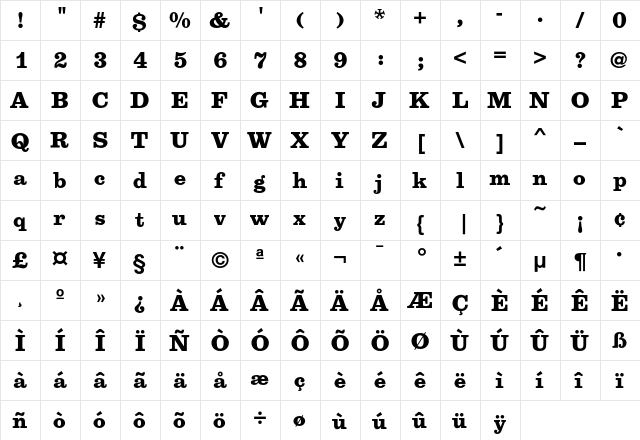
Egizio Bold
Design Context for Egizio Typeface
Egizio offers clean, dependable letterforms without strong stylistic allegiance, making it a practical choice for designers who need flexibility. Its bold stroke weight gives it real presence on the page.